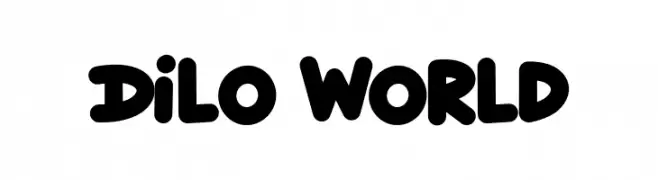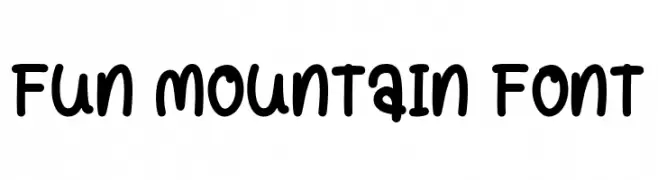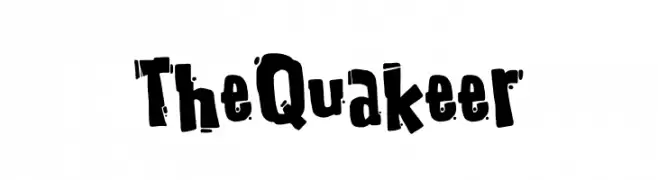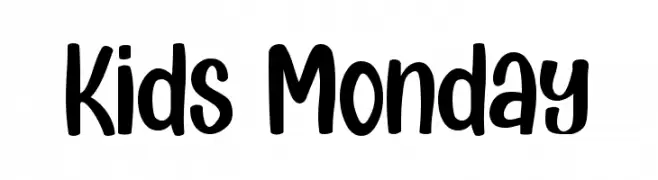
A bold, geometric font with a modern, industrial feel.
A bold, geometric font with a blocky, modern design.
A bold, geometric font with a modern, blocky design.
( Fonts by Alexa )
A bold, playful font with rounded edges and a bubbly appearance.
( Fonts by Wildan Suprian syah )
A playful, hand-drawn font with bold, rounded characters.
( Fonts by Balpirick Studio )
A playful, handwritten font with smooth, rounded strokes and a casual, friendly style.
( Fonts by Rometheme Studio )
A bold, distressed font with a playful and rugged appearance.
( Fonts by Alexa )
A bold, blocky font with a modern, sporty aesthetic.
( Fonts by Pandan Wangi )
A playful, bold, hand-drawn font with rounded, whimsical characters.
( Fonts by Rometheme Studio )
A bold, playful font with chunky, cartoonish letterforms.